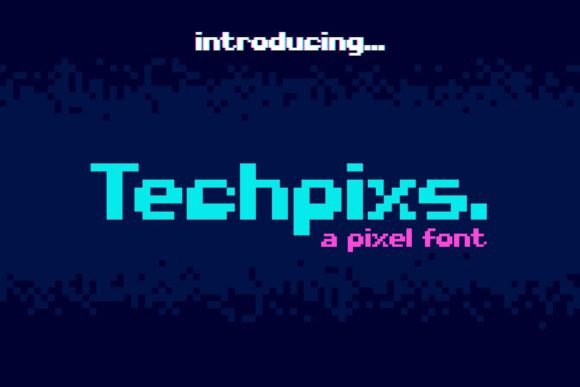
Dive into the realm of retro gaming aesthetics with Techpixs Font, the ultimate digital playground for your creative endeavors. Unleash your imagination and let the pixels dance across your designs, conjuring up nostalgic memories of 8-bit adventures.
Techpixs Font, a member of the decorative font family, is more than just a collection of characters; it's a portal to a world where creativity knows no bounds. Its bold, blocky structure and vibrant color palette evoke the essence of classic video games, inviting you to craft designs that resonate with a generation raised on pixelated heroes and epic quests.
As a designer, you'll find Techpixs Font to be a versatile tool, capable of transforming ordinary text into captivating headlines, eye-catching posters, and immersive t-shirt designs. Its retro charm adds a touch of nostalgia to any project, creating a sense of familiarity and connection with your audience.
With Techpixs Font, you'll have the power to:
- Embark on a journey through time, capturing the essence of the 8-bit era in your designs.
- Create designs that resonate with gamers and retro enthusiasts, evoking fond memories and sparking conversations.
- Add a touch of whimsy and playfulness to your projects, injecting a dose of lightheartedness into your creative endeavors.
- Stand out from the crowd with unique and distinctive designs that leave a lasting impression.
Whether you're a seasoned designer or just starting out, Techpixs Font is the perfect companion for your creative adventures. Its user-friendly nature makes it accessible to designers of all skill levels, allowing you to effortlessly incorporate its retro charm into your projects.